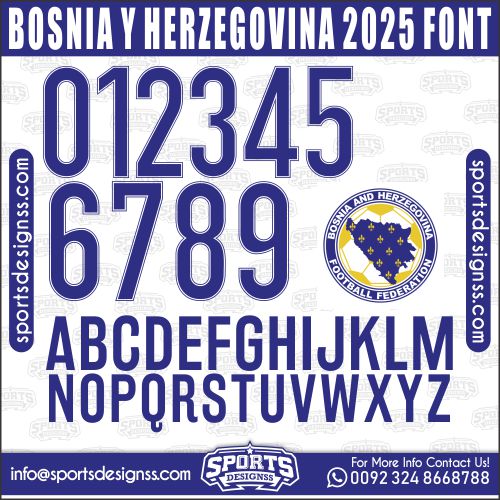
BOSNIA Y HERZEGOVINA 2025 FONT Download by Sports Designss
Download the BOSNIA Y HERZEGOVINA 2025 Font by Sports Designss – a premium football jersey font inspired by modern kits.
Recreate authentic football jersey designs with the BOSNIA Y HERZEGOVINA 2025, built for realistic, match-ready sports visuals.
Upgrade your designs with the BOSNIA Y HERZEGOVINA 2025, a premium football jersey font inspired by modern professional sports aesthetics.